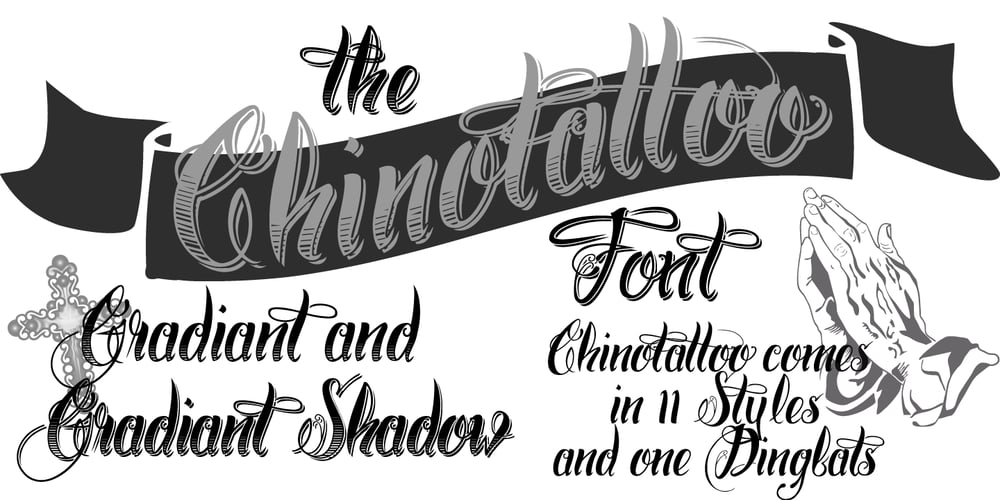
Chino Tattoo Font Family was designed by published by Otto Maurer. Chino Tattoo contains 12 styles and family package options. Chino Tattoo is best for all Tattooartists and Tattoofans. You can use it to make Tattooflashs for your Tattoostudio. Chino Tattoo is a typical Tattoostyle Font. The Chinostyle comes from the Gangs of the USA (with latin roots). They often have Chist-Symbols.